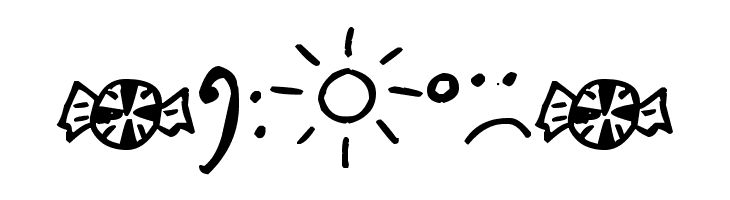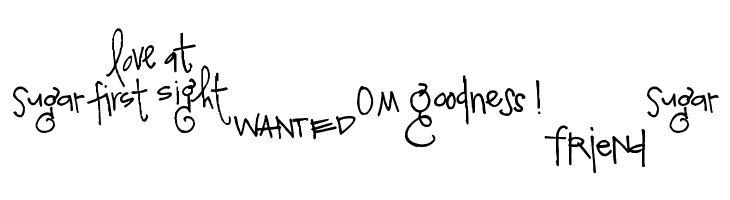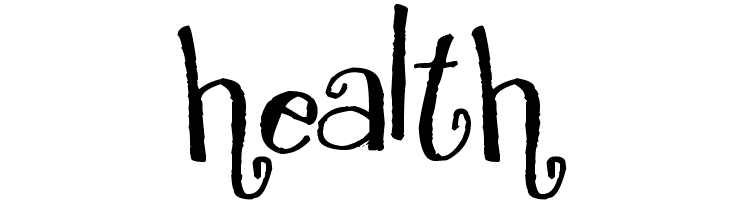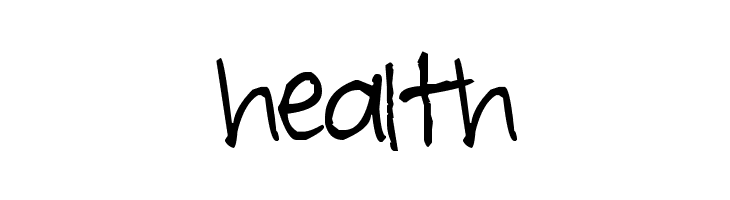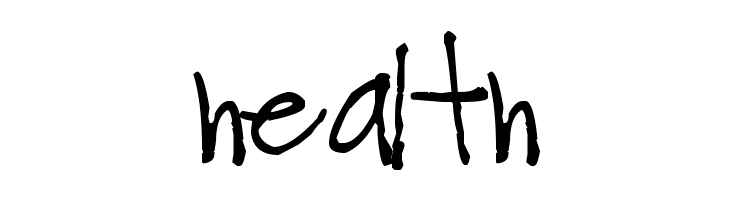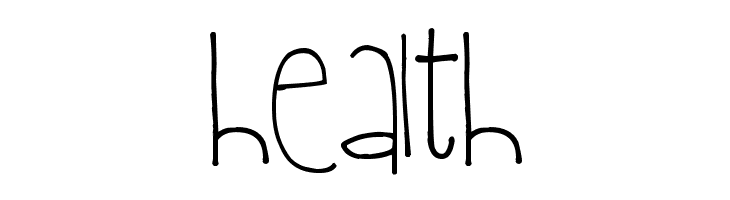
A playful, handwritten font with a casual and friendly appearance.
A playful and casual script font with flowing, connected letterforms.
A whimsical, hand-drawn font with playful curls and a lively style.
A playful, whimsical handwritten font with tall, narrow letters.
A playful, handwritten font with a youthful and whimsical style.
A playful, hand-drawn font with tall, narrow characters and a whimsical style.
A playful collection of hand-drawn doodle illustrations with a whimsical style.
A playful, handwritten font with a casual and friendly vibe.
A playful, hand-drawn font with a whimsical and informal style.
A playful, casual handwritten font with a lively and informal style.